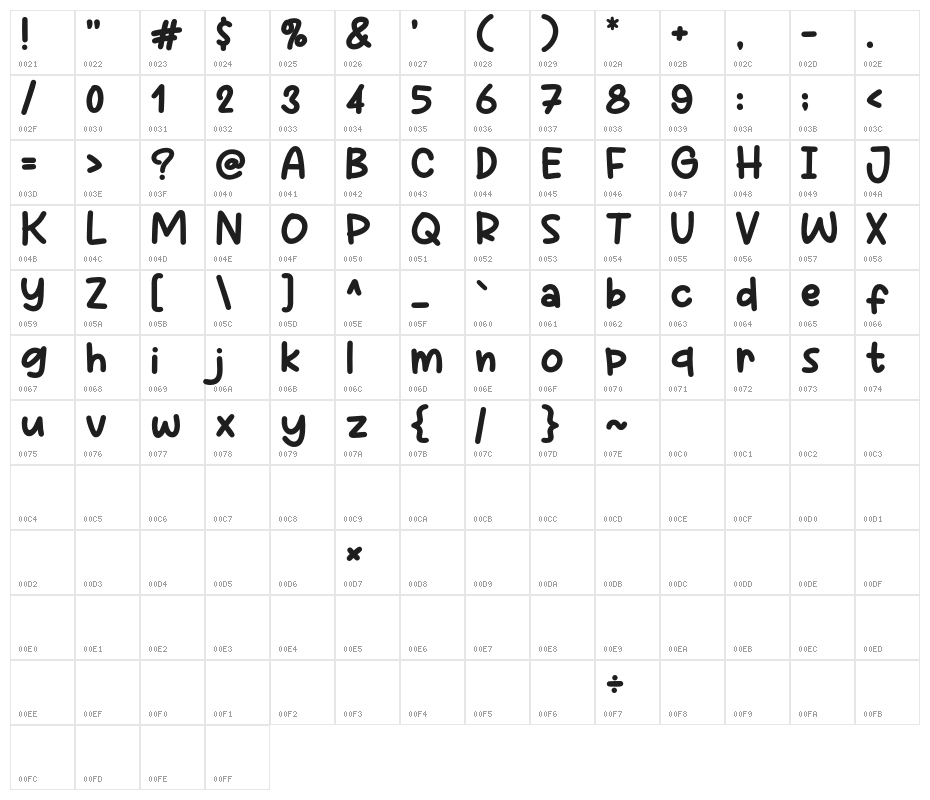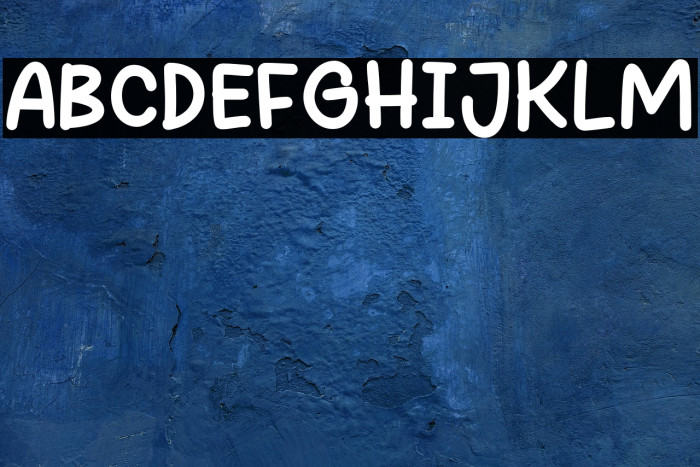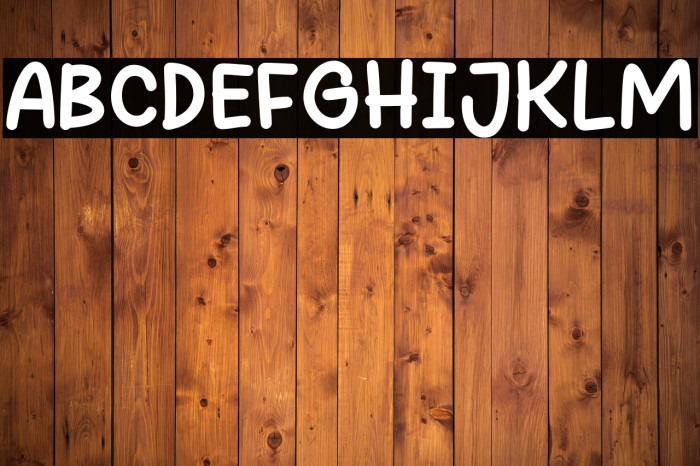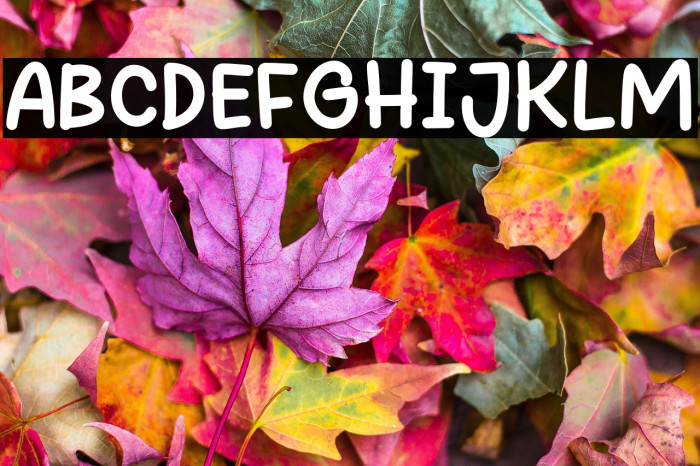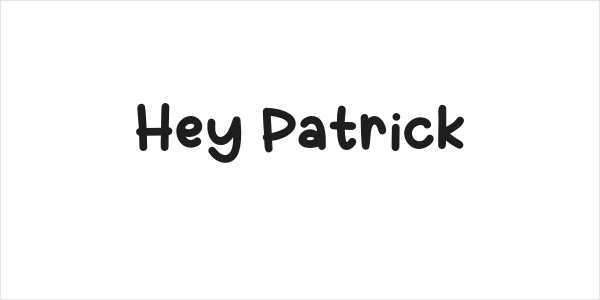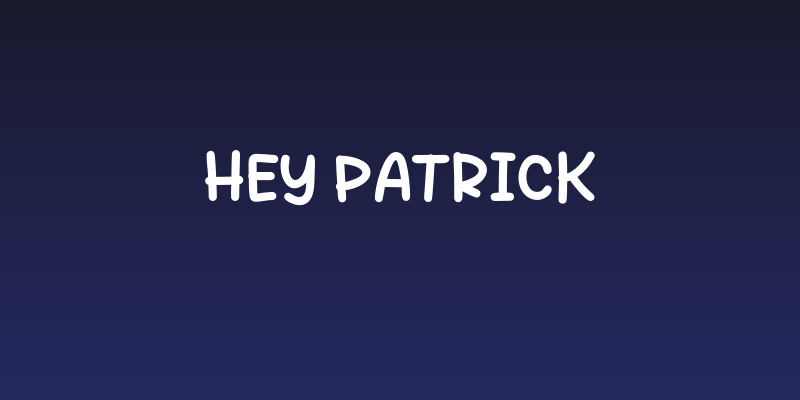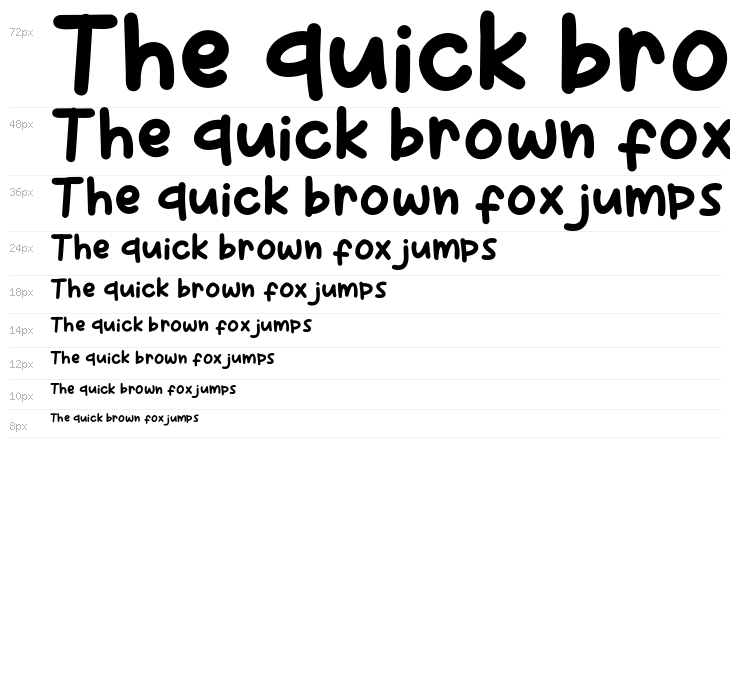
Hey Patrick Font
Hey Patrick Description
This playful and bold font features rounded, thick strokes that give it a friendly and approachable appearance. The characters are slightly irregular, adding a whimsical and hand-drawn feel. The uppercase and lowercase letters maintain a consistent style, with rounded edges and a casual flow. Numbers and special characters follow the same playful design, making it suitable for informal and creative projects. The font's boldness ensures readability while its unique style adds character and charm.
| Overall Style | Playful |
| Proposed Projects | Ideal for children's books, playful branding, casual invitations, and creative posters. |